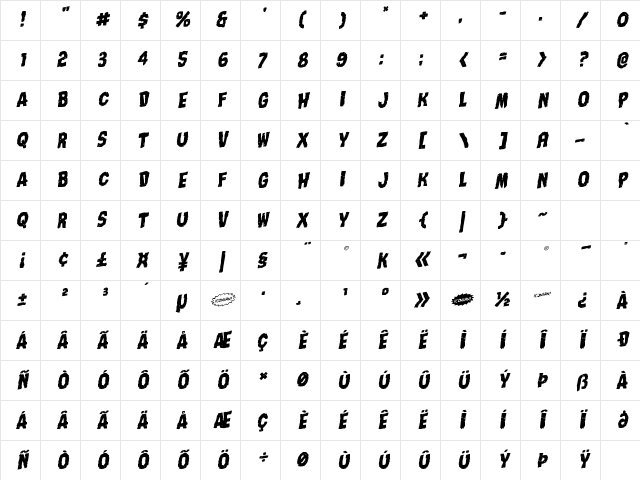
Nightmare Alley Rotalic Italic Free Font
Nightmare Alley Rotalic Italic
Design Context for Nightmare Alley Rotalic
Nightmare Alley Rotalic is a composed and adaptable typeface that performs quietly and consistently across a wide range of design contexts. The slanted form adds forward momentum and visual energy.
Pro Tip: Use Nightmare Alley Rotalic for emphasis, pull quotes, and subheadings where its slanted energy can add rhythm to the layout.